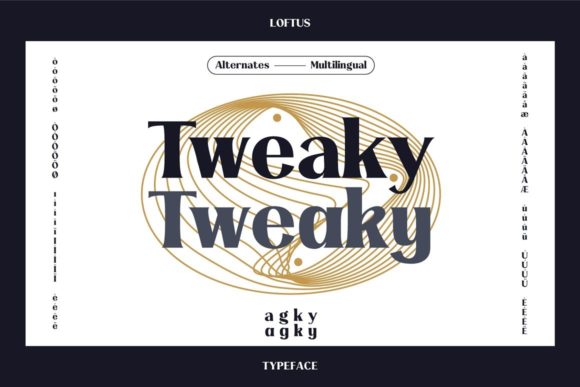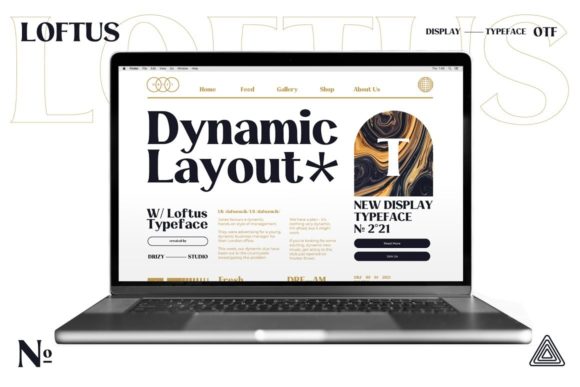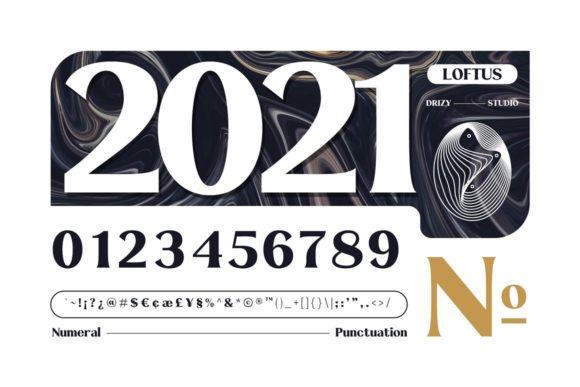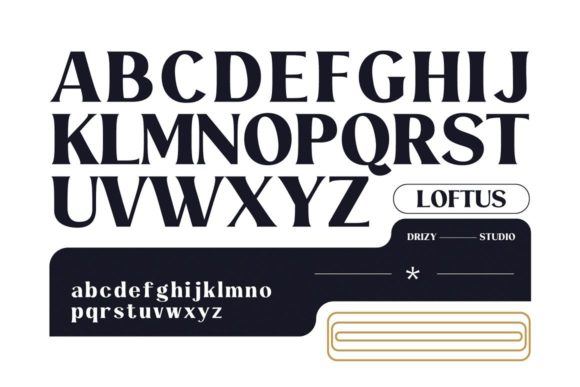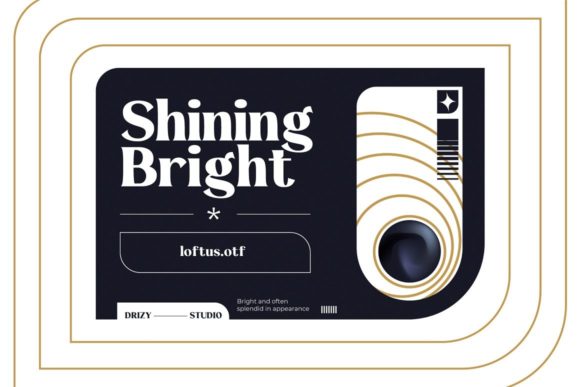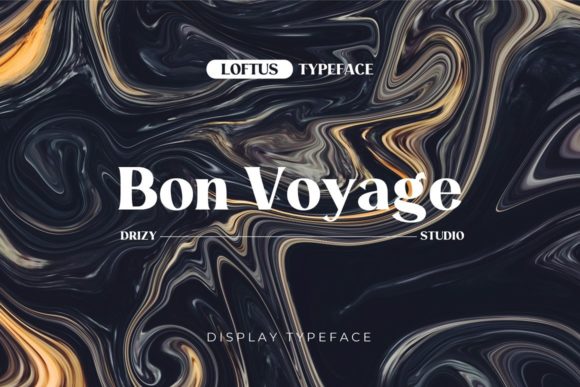
Introduction to Loftus Font Font
Fonts play a crucial role in design, and the Loftus Font font is a typeface that brings both character and versatility to any project. Whether you’re working on a branding project, a website, or a print design, the Loftus Font font offers a unique style that can elevate your work.
Loftus is a thick lettered and trendy serif font.
It will look stunning on any drinks menu, poster, flyer or print Use this font for your designs and explore its endless possibilities.
Key Features of Loftus Font Font
Why Choose Loftus Font Font?
The Loftus Font font is more than just a typeface – it’s a design tool that helps you communicate your message with style and clarity. Its unique character set and versatile design make it suitable for a wide range of applications, from elegant invitations to bold headlines.
With its carefully crafted letterforms and balanced proportions, the Loftus Font font ensures readability and visual appeal across all mediums.
What makes Loftus Font font special?
The Loftus Font font stands out with its unique design, exceptional readability, and versatility across various design applications.